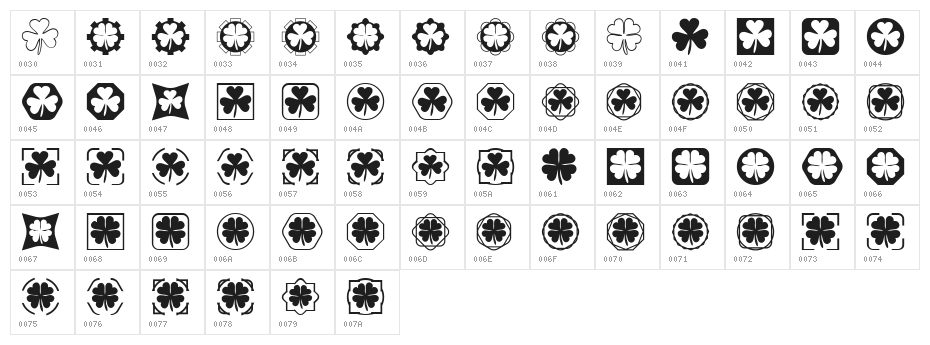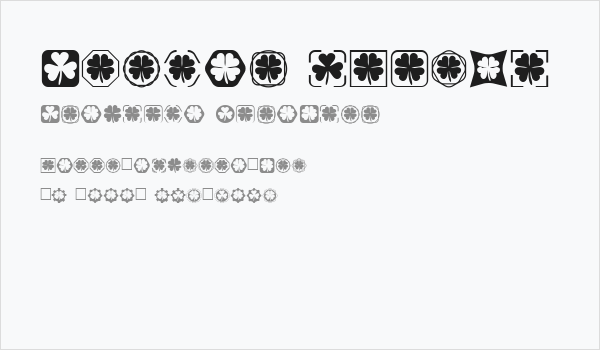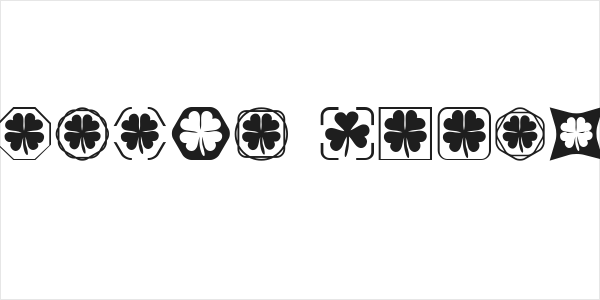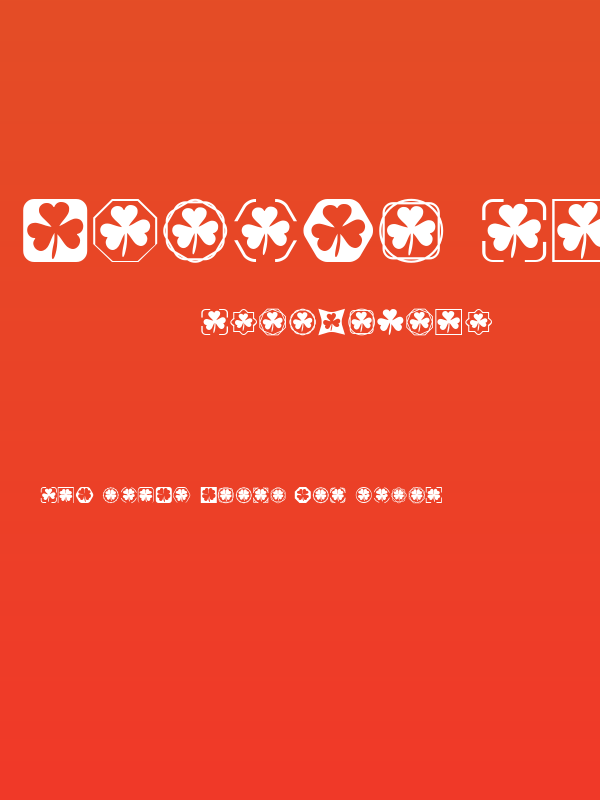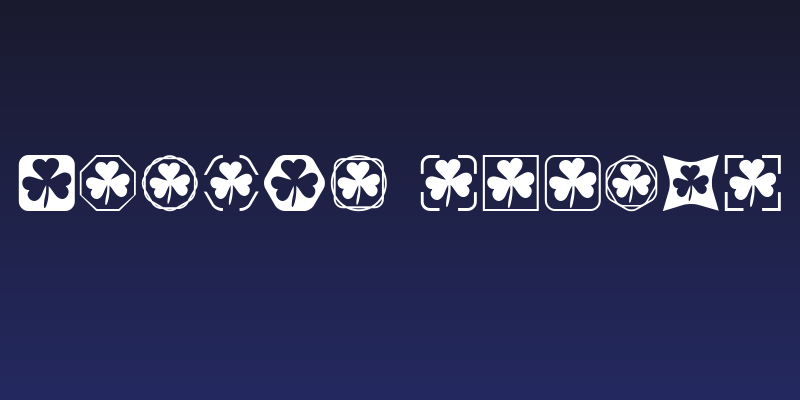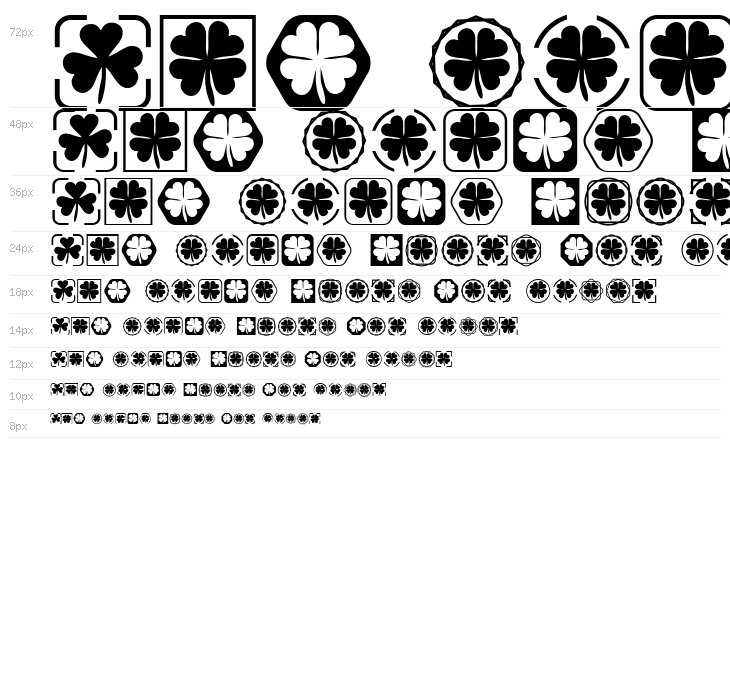
Clover Things Font
Clover Things Description
This is not a traditional font but rather a collection of decorative symbols featuring clover shapes. Each symbol is enclosed in various geometric frames, including circles, squares, and octagons, with alternating black and white fills. The designs are playful and thematic, focusing on the iconic shape of a clover, which is often associated with luck and nature. The symbols vary in complexity, with some featuring simple outlines and others incorporating intricate border details.
| Use Case | Logos, Decorative elements |
| Proposed Projects | Ideal for St. Patrick's Day decorations, themed invitations, or any project requiring a touch of nature or luck symbolism. |